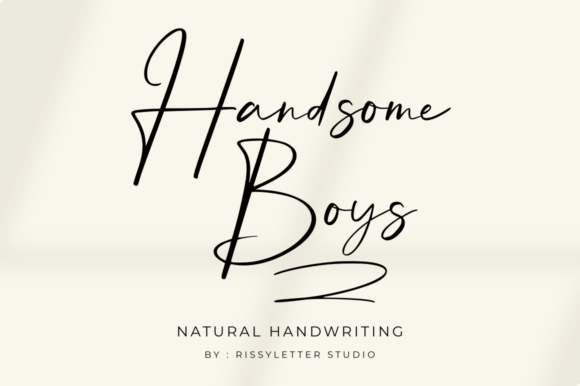
Introducing Handsome Boys Font, the epitome of cool fonts for tattoos script! Created by the talented minds at Rissyletter Studio, this font is bound to captivate and inspire. Whether you're designing wedding invitations, capturing beautiful moments as a photographer, crafting a unique signature, or revamping a modern website, Handsome Boys is the perfect choice.
With its sleek and stylish script design, this font adds a touch of sophistication to any project. Each letter is meticulously crafted to exude a sense of charm and elegance, making your text truly stand out. From the very first glance, your audience will be mesmerized by the artistic strokes and graceful curves of Handsome Boys.
Unleash your creativity and let this font be the voice of your projects. Its versatility knows no bounds, allowing you to effortlessly convey any emotion or message. Whether it's love, excitement, adventure, or even a touch of rebellion, Handsome Boys brings your words to life with its expressive and dynamic nature.
Imagine your wedding invitations adorned with this font, effortlessly capturing the essence of romance and celebration. Picture your photography portfolio showcasing striking captions, seamlessly blending artistry and professionalism. Envision your brand's logo, boldly displaying your unique style and leaving a lasting impression. Handsome Boys font is the key to unlocking these possibilities and more.
Not only does Handsome Boys elevate the aesthetic appeal of your projects, but it also ensures readability and accessibility. Each letter is crafted with precision, guaranteeing a smooth reading experience for your audience. Say goodbye to dull and generic fonts that fail to engage – Handsome Boys is here to make a statement.